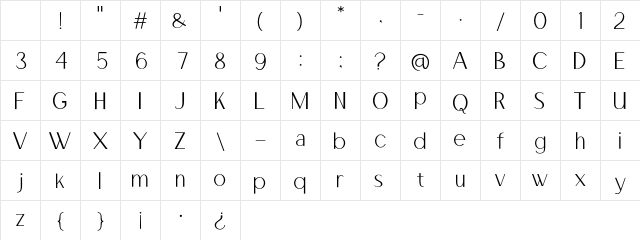
Complete Alevia DEMO Regular glyph index. Displaying only characters natively supported by Alevia DEMO Regular font.
Alevia DEMO is a composed and adaptable typeface that performs quietly and consistently across a wide range of design contexts.